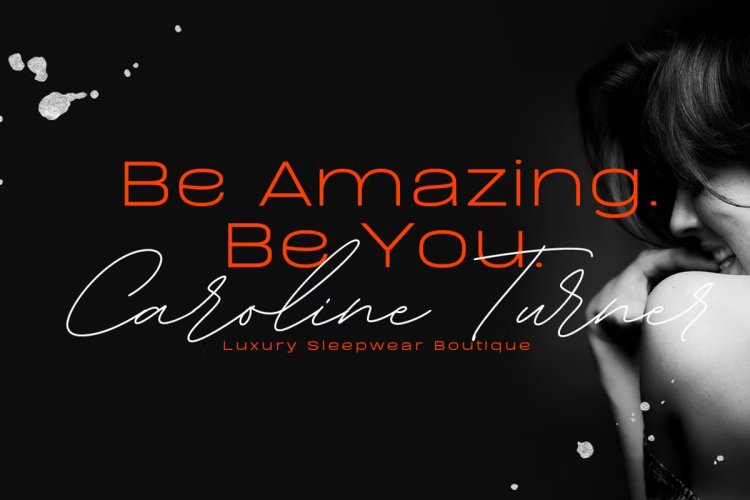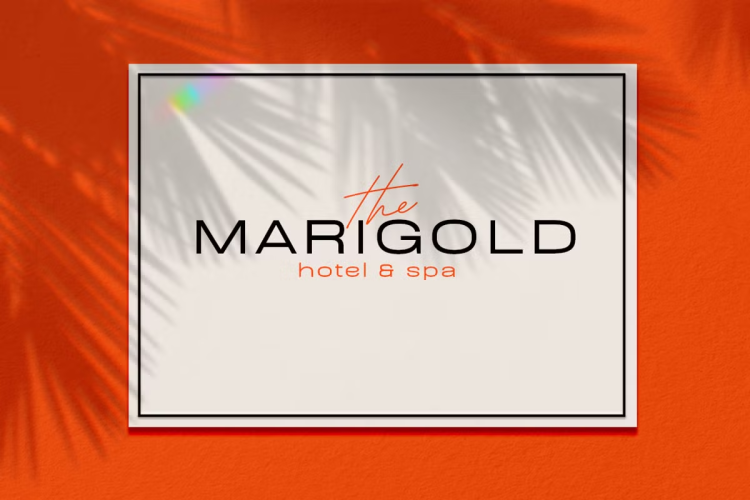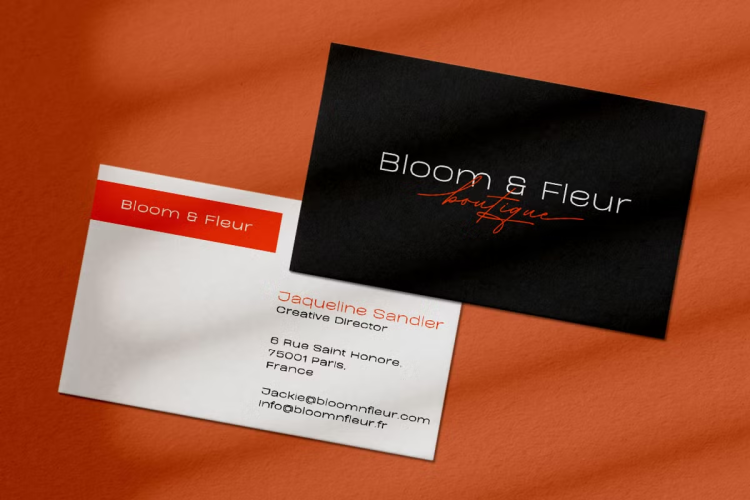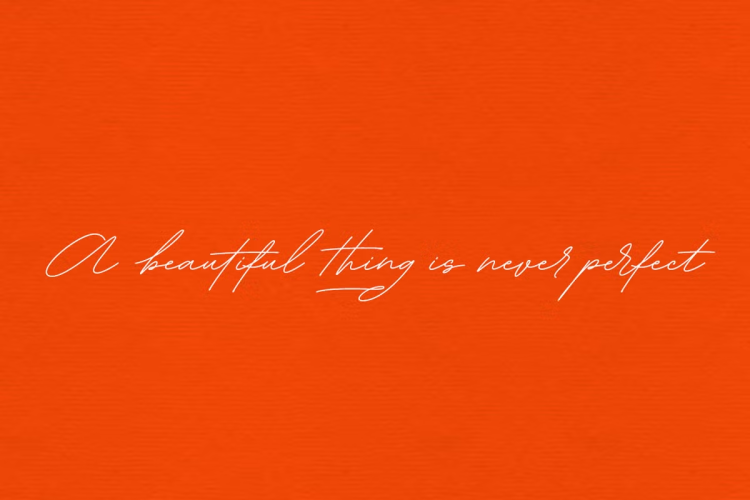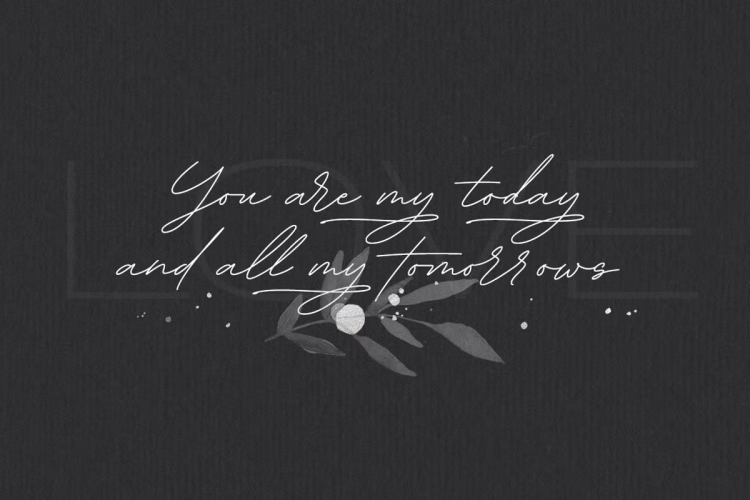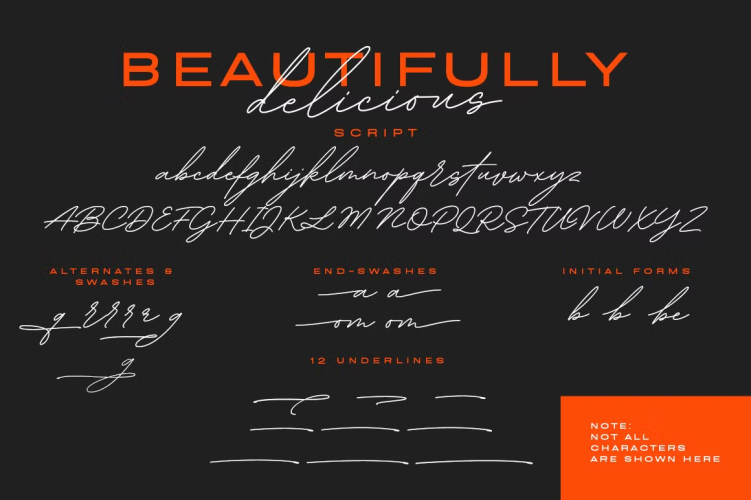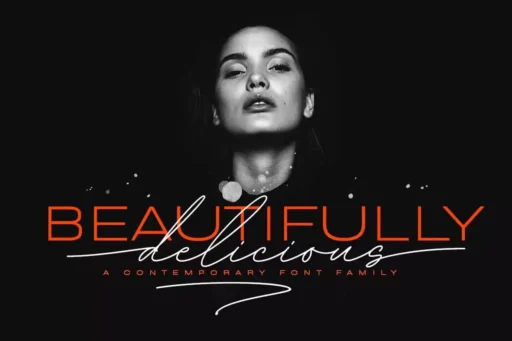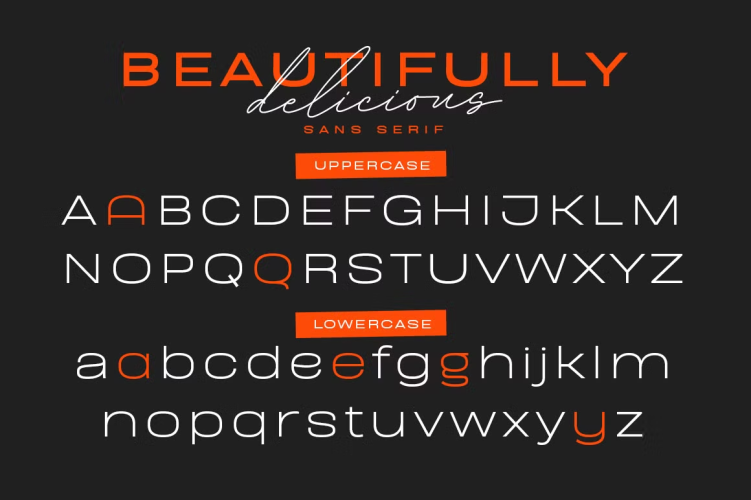
Beautifully Delicious Font
Beautifully Delicious is a stylish and luxury font by MyCreativeLand Foundry that combines extended sans serif fonts with a custom script to give your designs a touch of class. This font family is suitable for graphic design, quotes, branding, social media ads, magazines, greeting cards, packaging, etc.
Elena Genova, a famous type designer and founder of MyCreativeLand foundry, designed this font. This script font has more than a thousand glyphs and uses OpenType features such as ligatures, both standard and three-part, swashes, contextual alternates, two types of caps ( tall and short), and underline symbols. This is a large set of glyphs that will help make your text more attractive and flexible.
This sans serif typeface is available in Thin, Regular, Bold, and Black and also comes with stylistic alternates to help you be more creative with your designs. Due to its harmonious combination of elegance and practicality, Beautifully Delicious will be perfect for any project that requires elegance and innovation.
Beautifully Delicious Font is a Script And Handwritten font that brings a professional and versatile look to your projects. Beautifully Delicious is a stylish and luxury font by MyCreativeLand Foundry that combines extended sans serif fonts with a custom script to give your designs a touch of class.